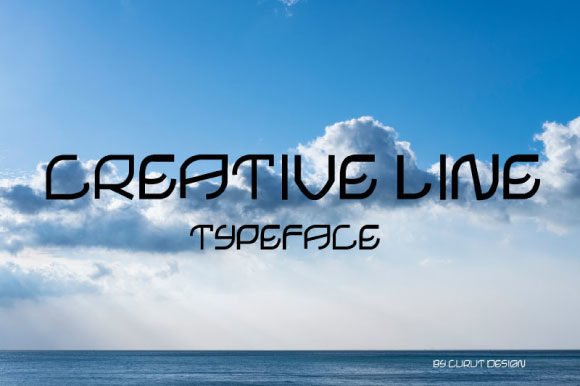
The Art of Typography: Unleashing Your Creativity with Creative Line Font
Have you ever found yourself staring at a blank page, waiting for inspiration to strike? For designers, this moment can be both exhilarating and intimidating. But what if the perfect font could spark that creative spark and take your designs to the next level?
Enter the Creative Line Font, a simple yet elegant display font that embodies a bold and experimental approach to classic design. This versatile font is perfect for designers who want to add a touch of sophistication to their work without sacrificing creativity. Whether you’re working on a logo, poster, or social media campaign, the Creative Line Font is sure to inspire.
With its clean lines and modern aesthetic, the Creative Line Font is a valuable addition to any designer’s toolkit. Its versatility and adaptability make it an ideal choice for a wide range of projects, from fashion to technology, and everything in between.
Creative Line Font Key Features
- Unique Characteristics: The font’s distinctive line style and creative flair make it suitable for artistic and design-focused projects, such as logos, typography, and infographics.
- Professional Touch: Designed with a high level of detail and sophistication, the font adds a touch of elegance to any design, from business cards to magazine layouts.
Designer Review: Creative Line Font
Overall, I think the Creative Line Font has some great qualities, but also some areas for improvement. ✨
The font has a unique and modern feel, making it perfect for creative and artistic projects. The bold and thin lines add a dynamic touch, and the font is highly legible even at smaller sizes. ✨
- Unique and modern design
- Highly legible even at smaller sizes
- Dynamic and artistic feel
However, I do have some concerns about the font’s limitations. ⚠️
- Lack of versatility in different font sizes and styles
- Not suitable for body text or long-form content
- May not be accessible for users with certain font rendering issues
Overall, I would give the Creative Line Font 3.5 out of 5 stars. It’s a great choice for creative projects, but may not be the best fit for more traditional or formal designs.
For optimal results, use Creative Line Font for headings, titles, and quotes that require a touch of elegance and sophistication. Experiment with layer styles and effects in Adobe Photoshop or Illustrator to create unique and eye-catching designs. In Canva, use the font in conjunction with other design elements to create visually appealing graphics.
Alternatives to Creative Line Font
Great Vibes is a modern, handwritten font with a touch of elegance and sophistication. It’s perfect for creating eye-catching headings and titles, and its cursive script style makes it ideal for wedding invitations, greeting cards, and other special occasions. Great Vibes is more elegant and refined compared to Creative Line Font, which is more playful and quirky.
Alex Brush is a beautiful, handwritten font with a touch of whimsy and romance. It’s perfect for creating elegant and sophisticated designs, and its flowing script style makes it ideal for wedding invitations, branding, and other high-end designs. Alex Brush is more refined and polished compared to Creative Line Font, which is more casual and laid-back.
Carolyna Pro is a modern, handwritten font with a touch of luxury and sophistication. It’s perfect for creating high-end designs, and its elegant script style makes it ideal for branding, packaging, and other premium designs. Carolyna Pro is more formal and polished compared to Creative Line Font, which is more playful and casual.
Q: What is the recommended font size and line spacing for optimal readability with Creative Line Font?
For optimal readability, we recommend using a font size between 12 and 18 points, depending on the context and intended audience. Additionally, a line spacing of 120-150% of the font size is recommended to ensure clear readability and visual balance.